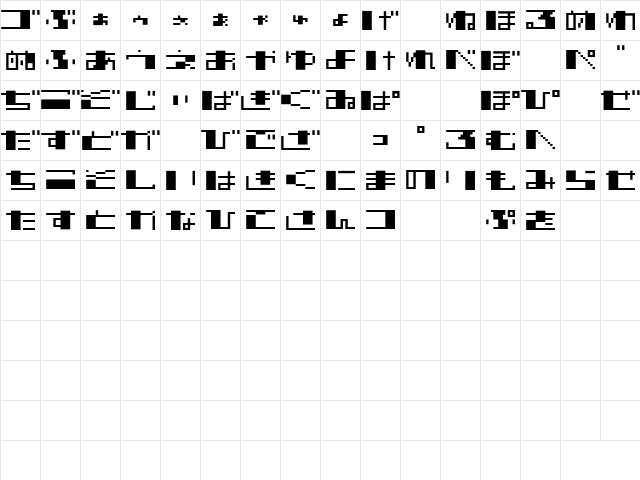
TECNO STRESS HIRAGANA Regular
Design Context for TECNO STRESS HIRAGANA Typeface
TECNO STRESS HIRAGANA is a composed and adaptable typeface that performs quietly and consistently across a wide range of design contexts.